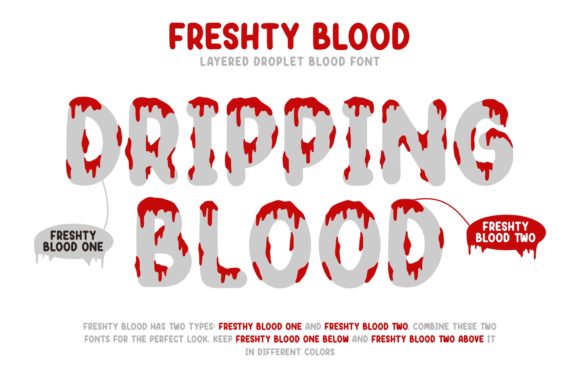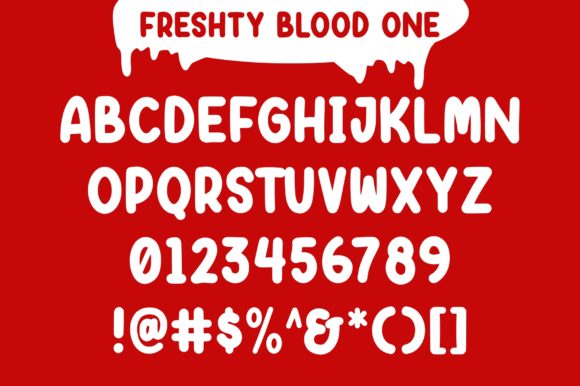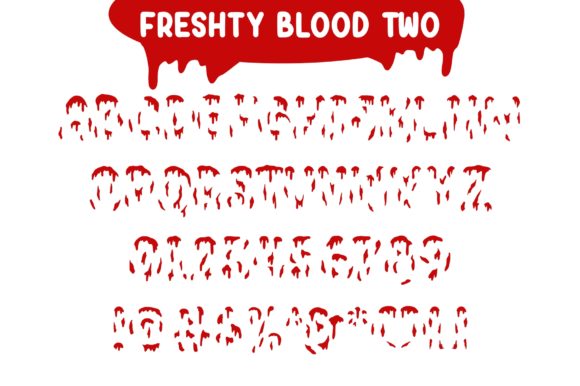
Unleash the Spooky Spirit in Your Designs
You’ve spent hours brainstorming the perfect idea for your Halloween project, and finally, it’s time to bring it to life. As you open your design software, you’re hit with a wave of excitement and anticipation. The only thing missing is the perfect font to give your creation that extra oomph. This is where Freshty Blood Font comes in – a bold and spooky decorative font that’s sure to make your design stand out.
This versatile font is perfect for designers looking to add a touch of Halloween magic to their projects. With its eerie and mysterious vibe, Freshty Blood Font is sure to captivate your audience and leave a lasting impression. Whether you’re creating a spooky poster, a creepy card, or a haunting website, this font is the perfect addition to your design toolkit.
Freshty Blood Font Key Features
- Unique Characteristics: Distressed, grungy, and edgy texture, perfect for creating a bold and attention-grabbing design
- Font Style: Sans-serif, with a modern and urban feel
Freshty Blood Font Review
I recently had the chance to play around with the Freshty Blood Font, and I must say it’s a unique and intriguing addition to any design project. ✨ One of the things that stands out is its bold, edgy aesthetic, perfect for making a statement in modern designs. The font’s irregularity and varied letterforms add a touch of personality to any text, making it ideal for use in branding and advertising.
Here are some of the things that work well in the Freshty Blood Font:
- ✨ Unique and bold aesthetic
- ✨ Perfect for making a statement in modern designs
- ✨ Irregularity and varied letterforms add personality to text
- ⚠️ May not be suitable for all types of text, such as body copy or large blocks of text
- ⚠️ Can be difficult to read in smaller sizes
- ⚠️ May not be as versatile as other fonts in terms of its applications
Overall, I think the Freshty Blood Font is a great choice for designers looking to add a touch of edginess to their projects. While it may have some limitations, its unique aesthetic and bold personality make it a compelling option for use in modern designs.
The Freshty Blood Font is ideal for creating bold, eye-catching headlines and titles.
Use it to add a touch of edginess to your designs, such as in music, fashion, or gaming branding.
Pair the Freshty Blood Font with a clean, modern sans-serif font for a striking contrast.